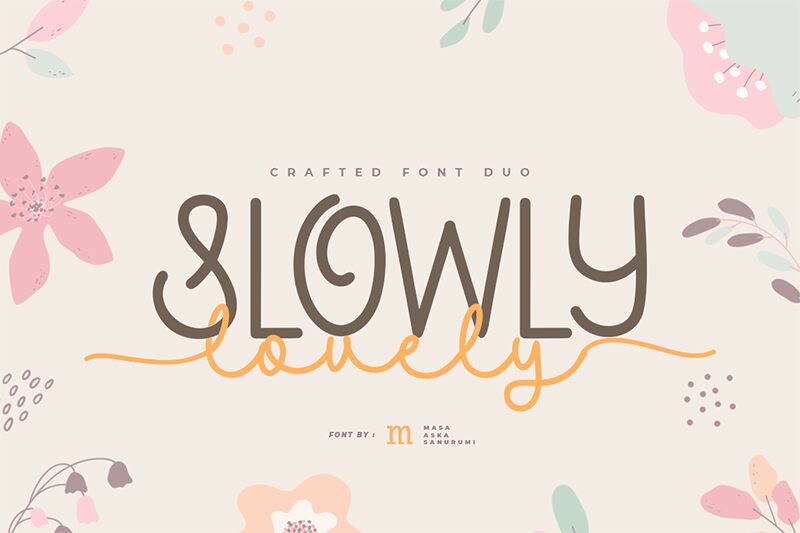
Embrace the charm of Slowly Lovely Sans, a handwritten treasure crafted by Masa Aska Sanurumi. With its fluidity and grace, this font duo captures the essence of simplicity paired with elegance. Ideal for those who seek to infuse a personal touch into their designs, Slowly Lovely Sans is a versatile choice for Instagram captions, branding endeavors, or bespoke stationery.
The font's subtle variations mimic authentic hand strokes, making each character come alive as if penned by an artist. Whether it’s adding sophistication to digital content or lending a handcrafted feel to DIY projects, Slowly Lovely Sans transforms words into visual delights. Its adaptability ensures that your creative vision is not just seen but felt, elevating the ordinary to extraordinary with every curve and line.